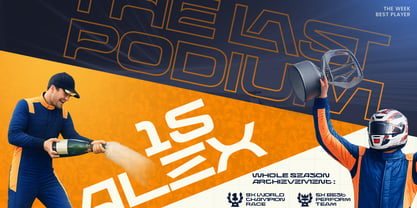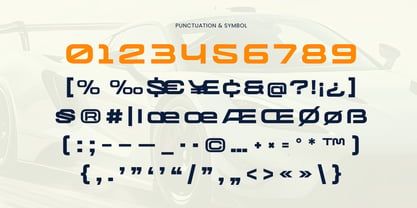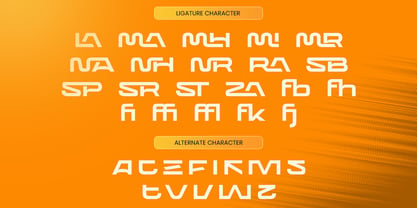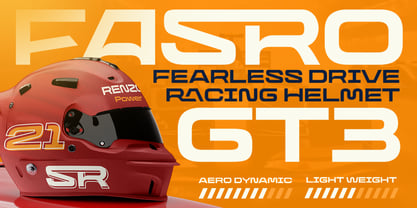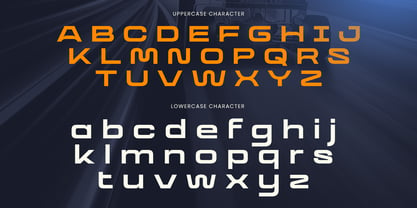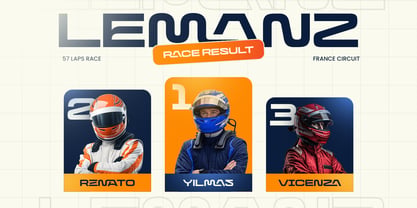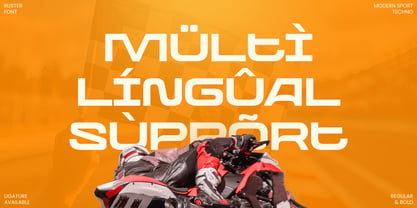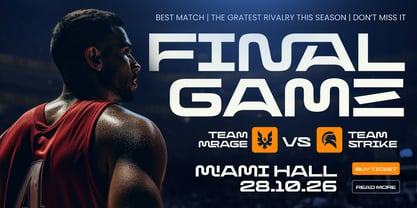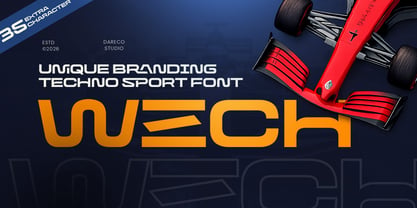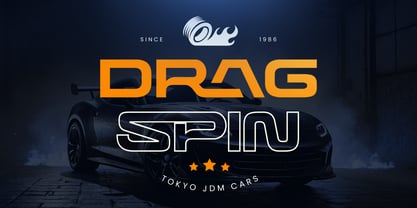
Wech
La famille de polices Wech a été conçue par Kusnidah Marpuah et publiée par Dareco Studio. Wech contient 2 styles et options de package familial. En savoir plus sur cette famille
Wech – Unique Branding Techno Sport Font is a high-energy display typeface designed to combine futuristic techno aesthetics with dynamic sports performance. Inspired by racing visuals, digital technology, and competitive branding, Wech is built for projects that demand motion, power, and bold identity.
With its sharp angles, dynamic structure, and distinctive letterforms, Wech delivers a strong visual impact while maintaining readability in large-scale applications. The design emphasizes speed and precision, making it ideal for modern sport and techno-driven branding.
Wech Font Features
• Complete character set including uppercase, lowercase, numerals, symbols, and punctuation
• Unique techno sport letterforms optimized for branding and headline use
• OpenType features included to support dynamic display typography
Wech is Perfect For
• Sport branding and team identity design
• Racing, automotive, and performance visuals
• Esports and gaming branding
• Futuristic technology campaigns
• Posters and high-impact promotional graphics
• Bold headline and energetic design projects
Whether you are creating a sport identity, designing a racing visual system, or building a futuristic branding concept, Wech helps your design communicate speed, strength, and modern technological energy.